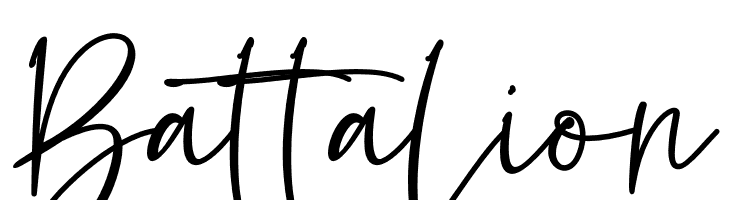
A lively and expressive handwritten font with fluid strokes.
A bold, dynamic script font with fluid, connected letterforms and a modern flair.
A dynamic, italicized handwritten font with fluid, connected letters.